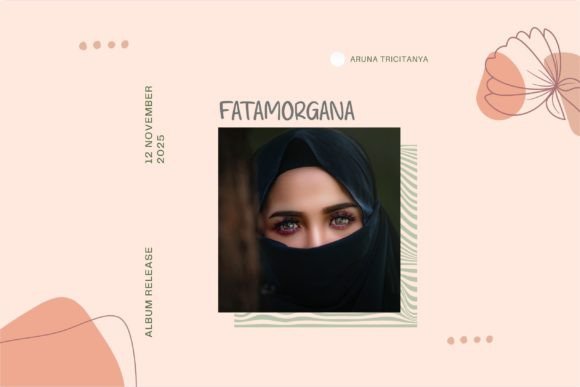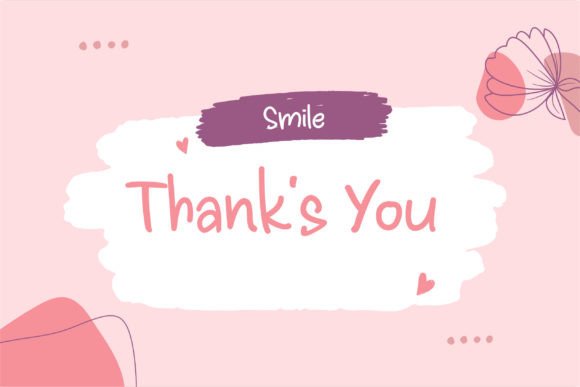
Discover the Charm of Arrasqu Font: A Cute and Friendly Handwritten Font
Are you looking for a font that can add a touch of personality and whimsy to your creative projects? Look no further than Arrasqu Font, a delightful handwritten font that is sure to capture the hearts of designers and crafters alike. In this article, we’ll dive into the world of Arrasqu Font and explore its features, benefits, and uses.
What is Arrasqu Font?
Arrasqu Font is a carefully crafted handwritten font that exudes a sense of friendliness and approachability. Its cute and playful design makes it perfect for a wide range of creative projects, from digital designs to print materials. Whether you’re working on a branding project, a craft tutorial, or a social media graphic, Arrasqu Font is sure to add a dash of charm and personality to your work.
Features of Arrasqu Font
So, what makes Arrasqu Font so special? Here are just a few of its standout features:
- Handwritten design: Arrasqu Font is a genuine handwritten font, carefully crafted to capture the imperfections and quirks of human handwriting.
- Cute and friendly: The font’s playful design makes it perfect for projects that require a touch of whimsy and personality.
- Highly legible: Despite its handwritten design, Arrasqu Font is highly legible, making it suitable for use in a wide range of applications.
- Versatile: Arrasqu Font can be used for both digital and print projects, making it a versatile addition to any designer’s toolkit.
Benefits of Using Arrasqu Font
So, why should you choose Arrasqu Font for your next project? Here are just a few benefits of using this delightful font:
- Adds personality to your designs: Arrasqu Font is the perfect way to add a touch of personality and whimsy to your designs.
- Creates a friendly tone: The font’s friendly design helps to create a warm and approachable tone, perfect for brands that want to connect with their audience.
- Easy to read: Arrasqu Font is highly legible, making it easy for your audience to read and understand your message.
- Stand out from the crowd: With its unique and playful design, Arrasqu Font is sure to help your designs stand out from the crowd.
Uses of Arrasqu Font
Arrasqu Font is a versatile font that can be used in a wide range of creative projects, including:
- Branding and logos: Use Arrasqu Font to create a unique and memorable brand identity.
- Social media graphics: Add a touch of personality to your social media graphics with Arrasqu Font.
- Craft tutorials: Use Arrasqu Font to create fun and engaging craft tutorials.
- Print materials: Arrasqu Font is perfect for use in print materials, such as brochures, flyers, and posters.
| Font Name | Arrasqu Font |
| Author | AR Alfarizi Studio |
In conclusion, Arrasqu Font is a delightful handwritten font that is sure to capture the hearts of designers and crafters alike. Its cute and friendly design makes it perfect for a wide range of creative projects, from digital designs to print materials. With its highly legible design and versatile uses, Arrasqu Font is a must-have addition to any designer’s toolkit. So why wait? Add Arrasqu Font to your creative projects today and discover the charm and personality it can bring!
Here are a few tips and tricks to help you get the most out of Arrasqu Font:
- Experiment with font sizes: Arrasqu Font looks great in a variety of font sizes, so don’t be afraid to experiment and find the perfect size for your project.
- Pair with other fonts: Arrasqu Font pairs well with a range of other fonts, so try pairing it with a bold font for added contrast.
- Use for headlines and body text: Arrasqu Font is highly legible, making it suitable for use in both headlines and body text.